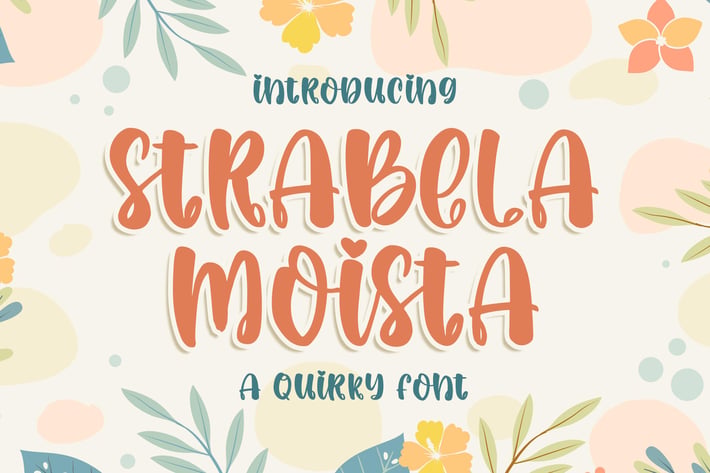
Strabela Moista - a Quirky Font
Introducing of our new product the name is Strabela Moista a Quirky Font. Strabela Moista inspired by Beauty Script this font is a fun theme very good for display, valentine theme, wedding, logotype and etc